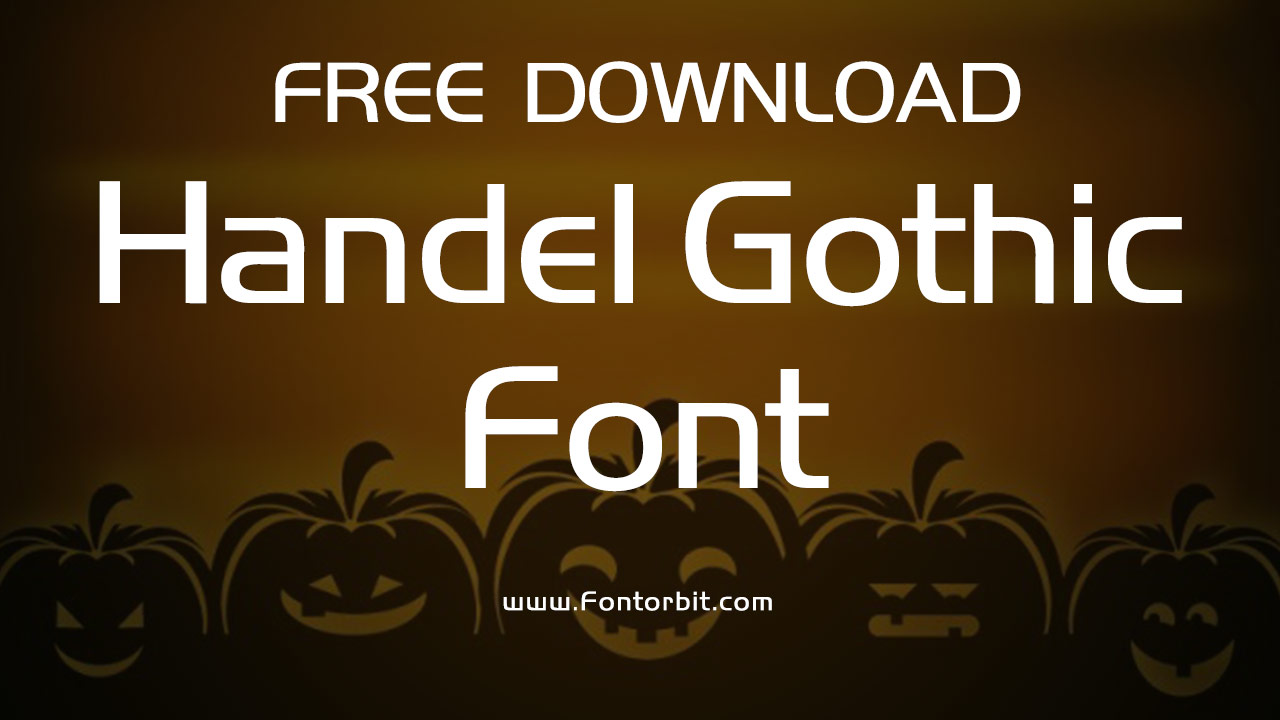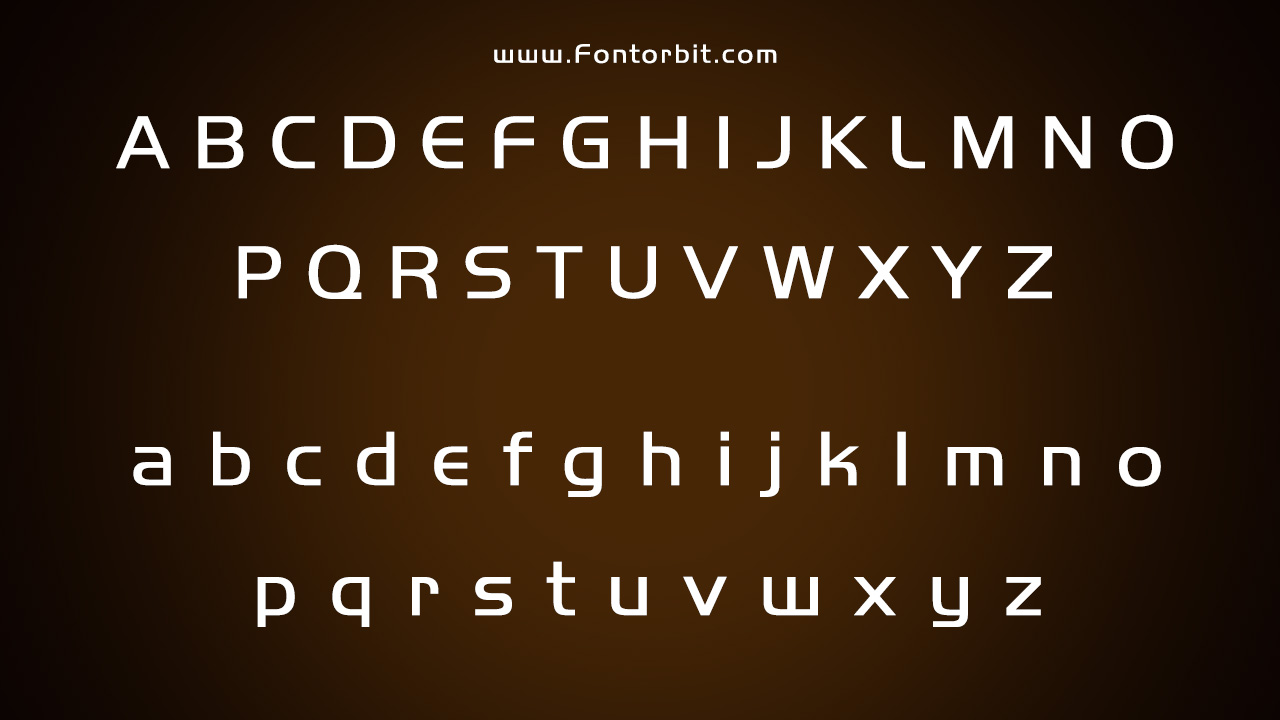
Handel Gothic is a futuristic sans-serif font designed by Robert Trogman and published by Bitstream in the late 1960s and published by Bitstream.
Because of its sleek, geometric design, Handel Gothic has become a favorite in science fiction and technology-related media. Its clean and modern aesthetic offers a sense of forward-thinking innovation, making it perfect for titles, branding, and advertising in tech sectors.
Handel Gothic Font Family Includes
The Handel Gothic font family is versatile and offers multiple application variations. The family features a range of weights that provide a unified, cohesive look across all its styles.
- Handel Gothic BT Regular
- HandelGothic Regular
Notable Uses Of Handel Gothic
Handel Gothic has been widely used in sci-fi movies, TV shows, and branding campaigns that require a futuristic or cutting-edge look. Notable uses include:
- NASA Space Shuttle insignia
- Logos for video games like “Mass Effect.”
- Futuristic movie titles such as “Star Trek.”
Its tech-forward and futuristic vibe makes it ideal for use in any science fiction or technological context.
Handel Gothic remains a staple in the design world, particularly for those looking to incorporate futuristic and tech-savvy aesthetics into their projects. Whether it’s for space-themed graphics, high-tech branding, or sci-fi movie titles, Handel Gothic is a go-to choice for designers who want to convey innovation and forward momentum.
1.What Type Of Font Is Handel Gothic?
It is a futuristic, geometric sans-serif font.
3.What Are The Notable Uses Of Handel Gothic?
It’s been used by NASA, sci-fi movie titles, and video games.
6.Is Handel Gothic A Good Font For Logos?
Yes, especially for tech-related brands and futuristic logos.
7.What’s The Best Weight To Use For Body Text?
The regular weight is suitable for body text but typically used for titles.